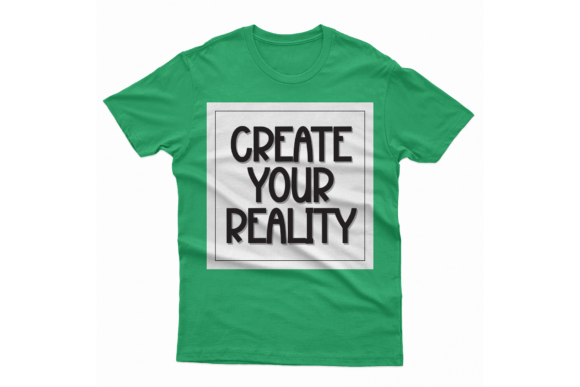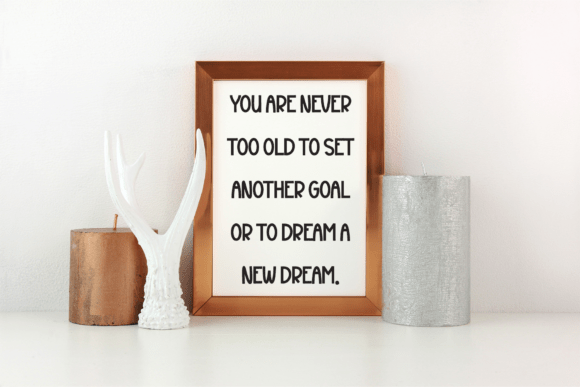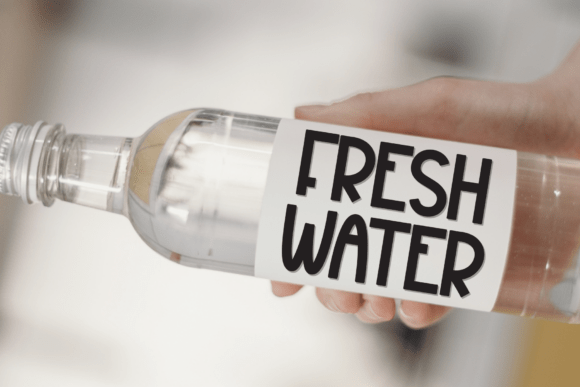
School Notebook Font
School Notebook is a fun and creative handwritten font inspired by the charm of classroom doodles and clean-lined lettering. With its friendly and readable character, this typeface is perfect for back-to-school designs, children’s books, planners, educational materials, and casual branding. Its bold and slightly quirky form brings a youthful and approachable vibe to any project.